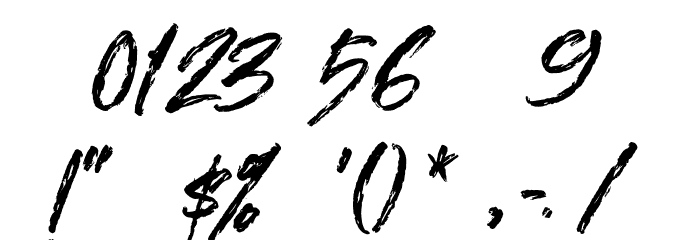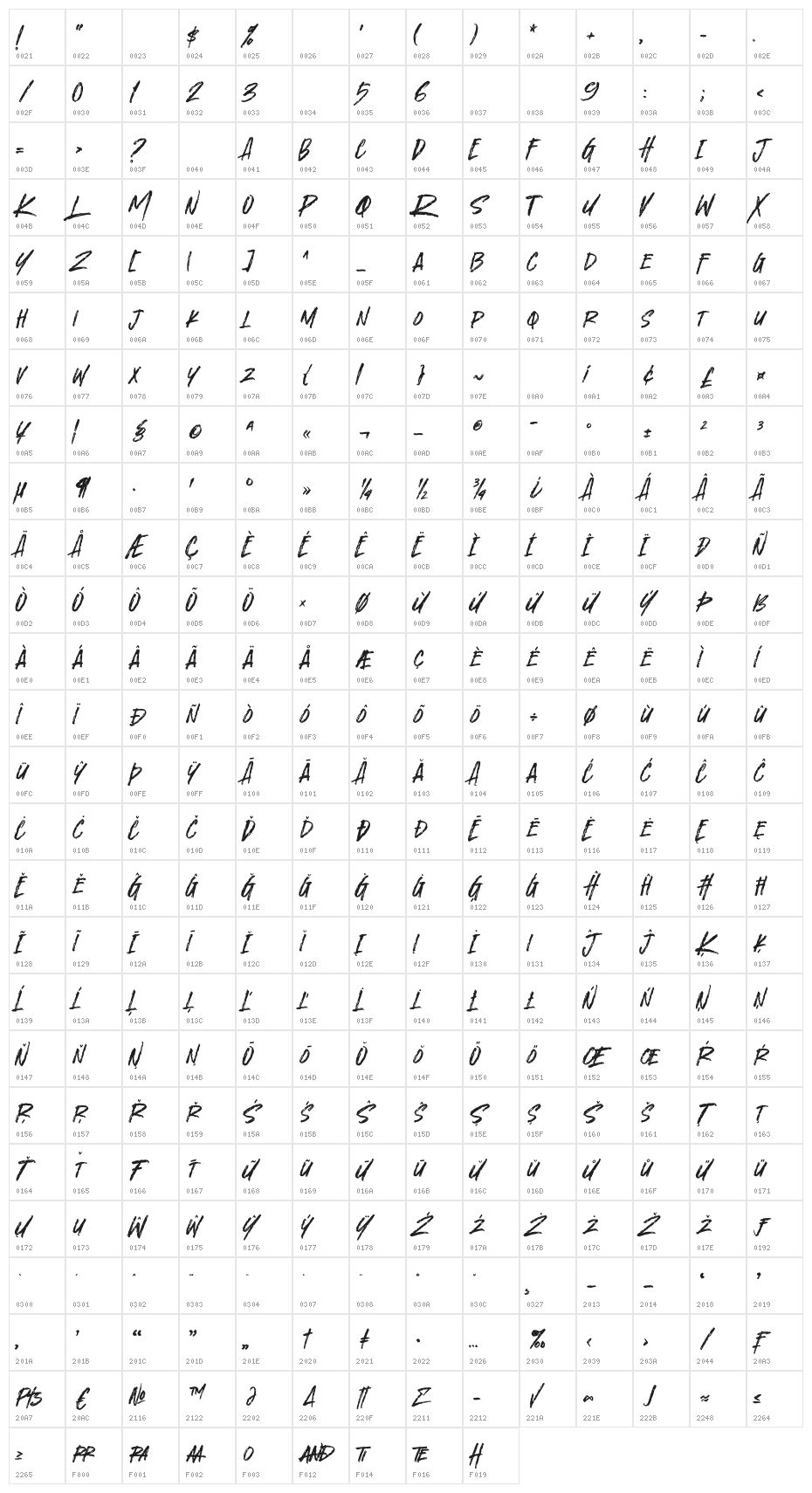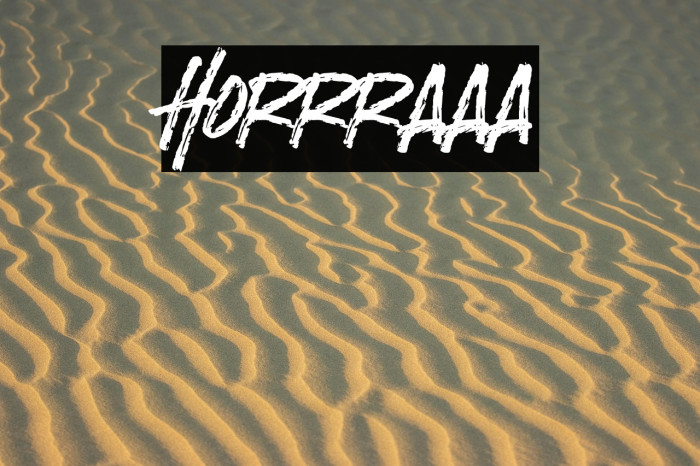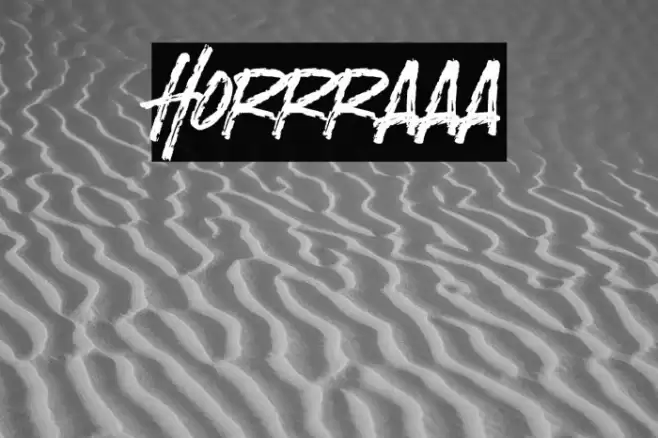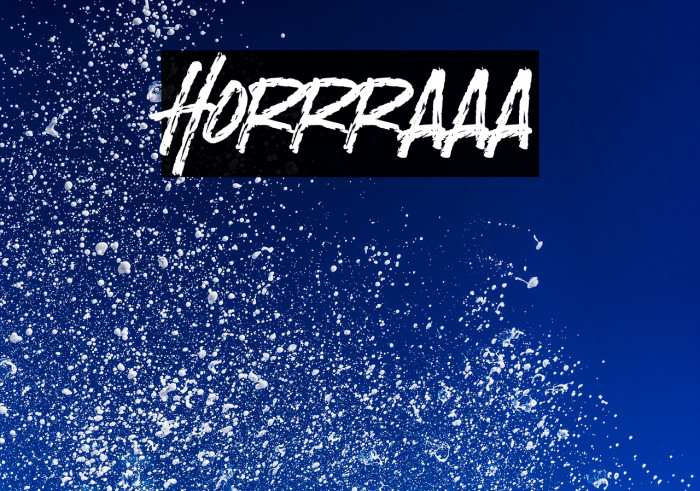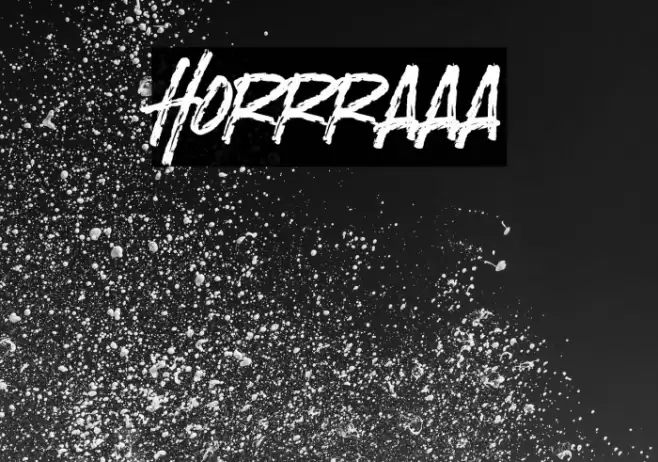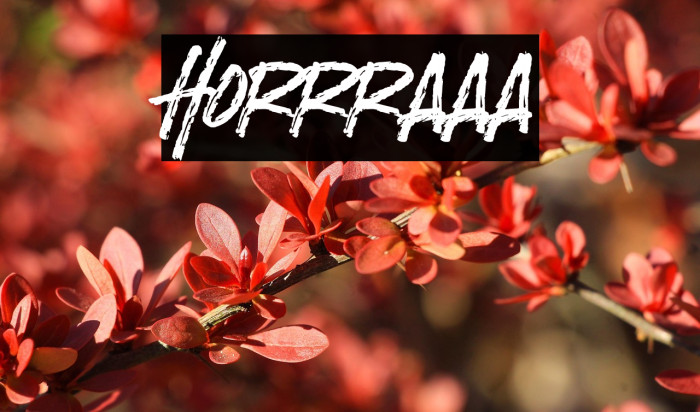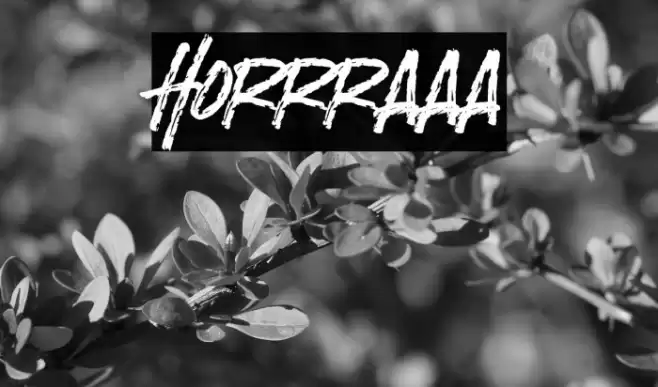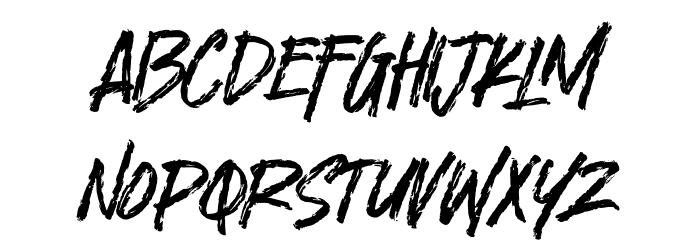
Horrraaa Font
Horrraaa Description
This font exhibits a bold, expressive style with a hand-drawn appearance, characterized by its rough, textured strokes and dynamic energy. The letters are slightly slanted, giving a sense of movement and urgency. The uppercase and lowercase letters maintain a consistent style, with exaggerated curves and sharp angles that enhance its dramatic flair. The numbers and special characters follow the same aesthetic, ensuring a cohesive look throughout. This font's raw, artistic quality makes it stand out, ideal for projects that require a strong visual impact.